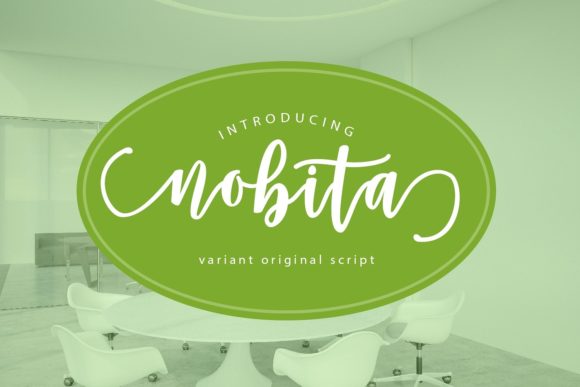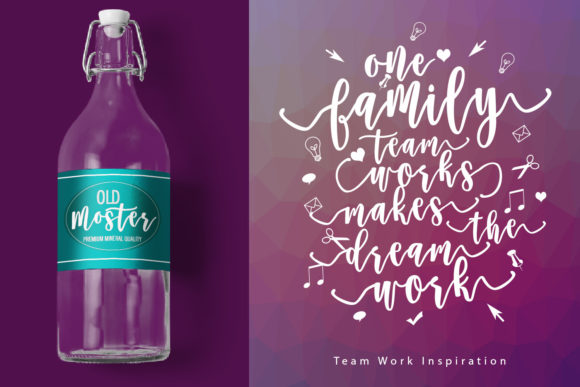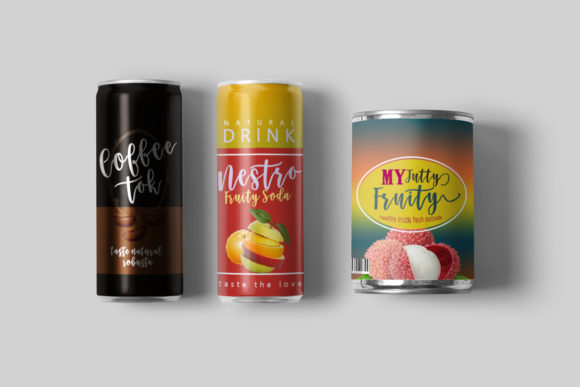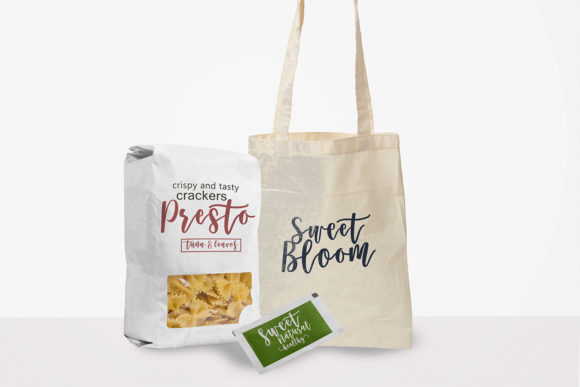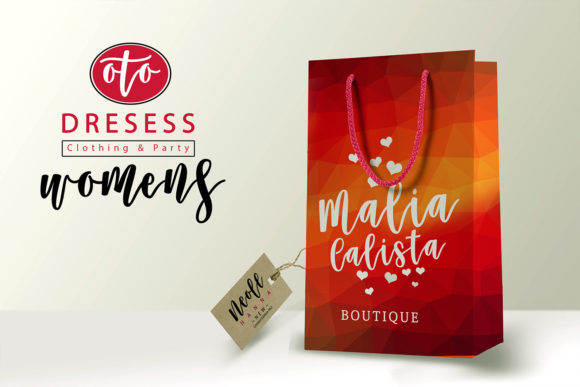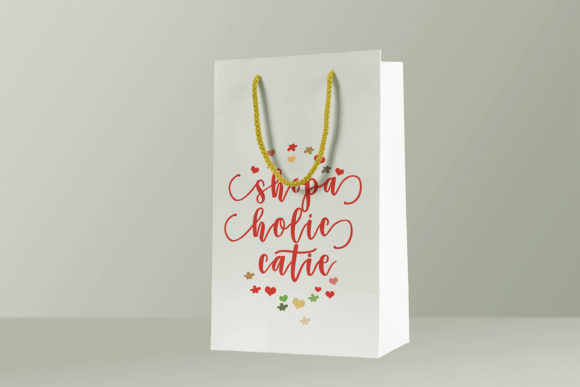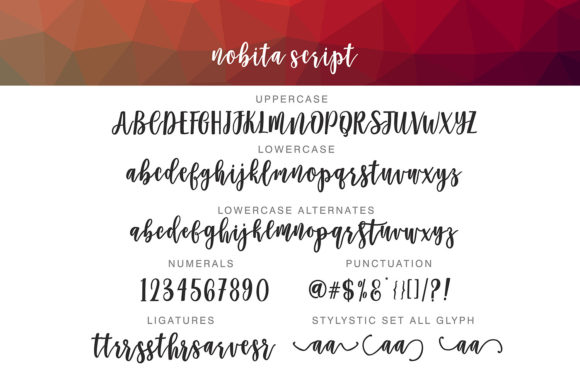
Nobita Script Font
About Nobita Script Font
Nobita is a neat and professional script font designed for projects that need high-quality typography. Trendy, natural, and gentle, you can take advantage of this font and highlight your most creative projects and ideas!